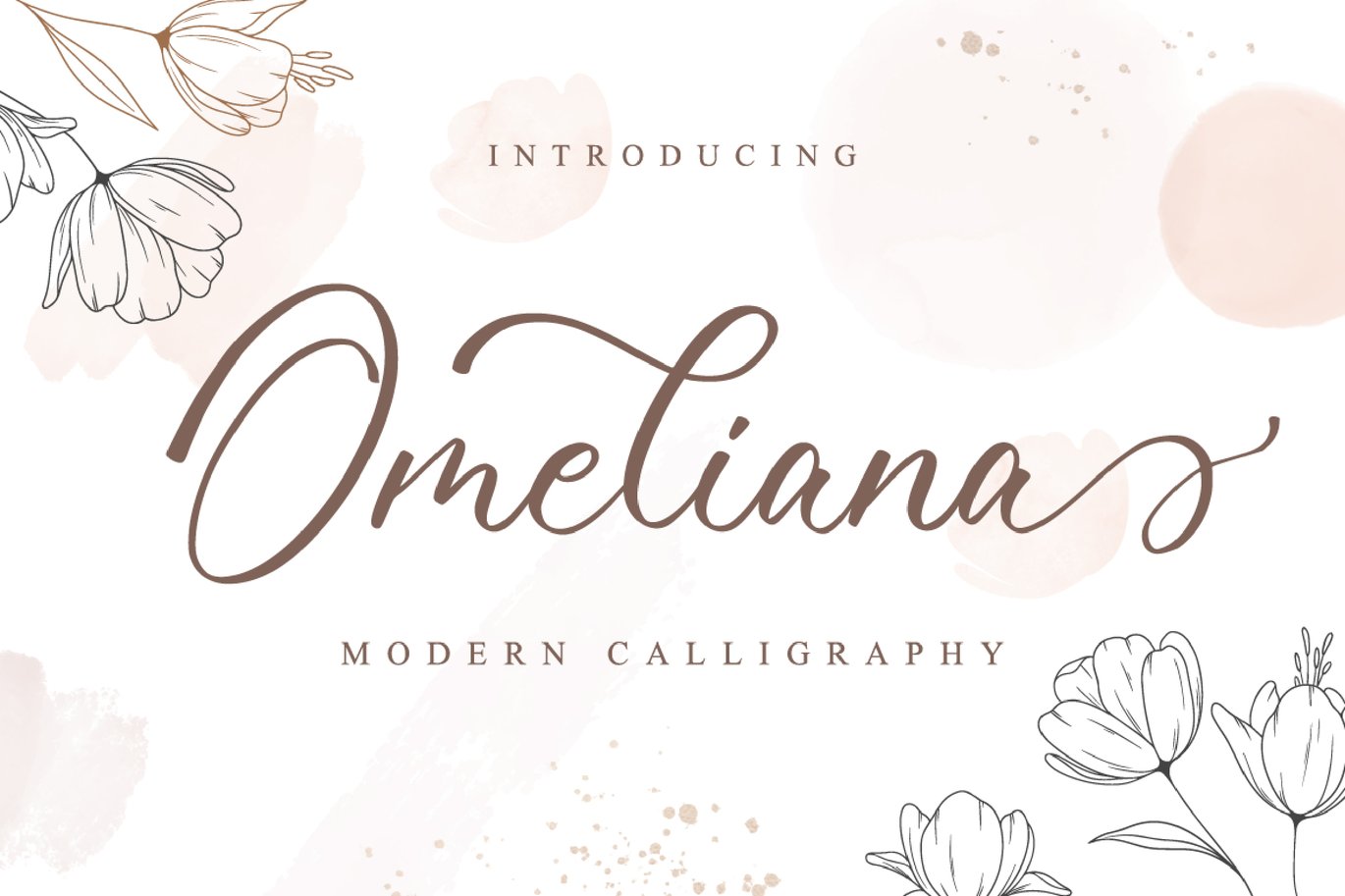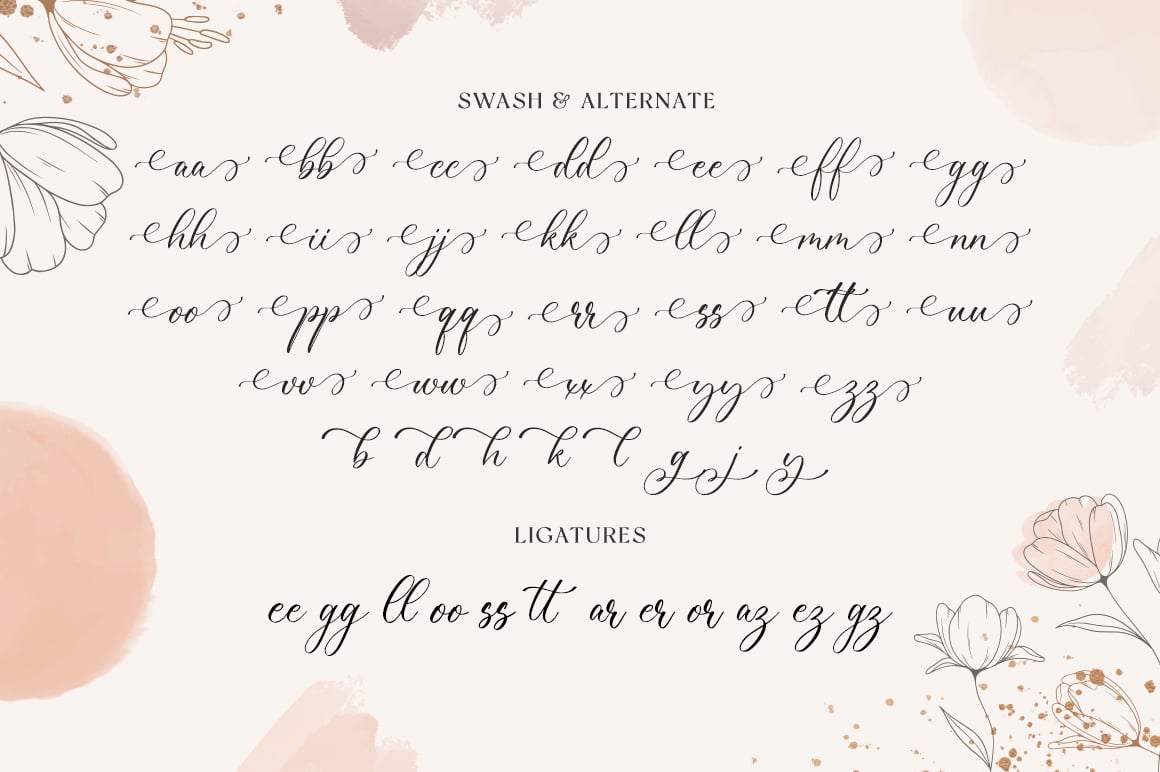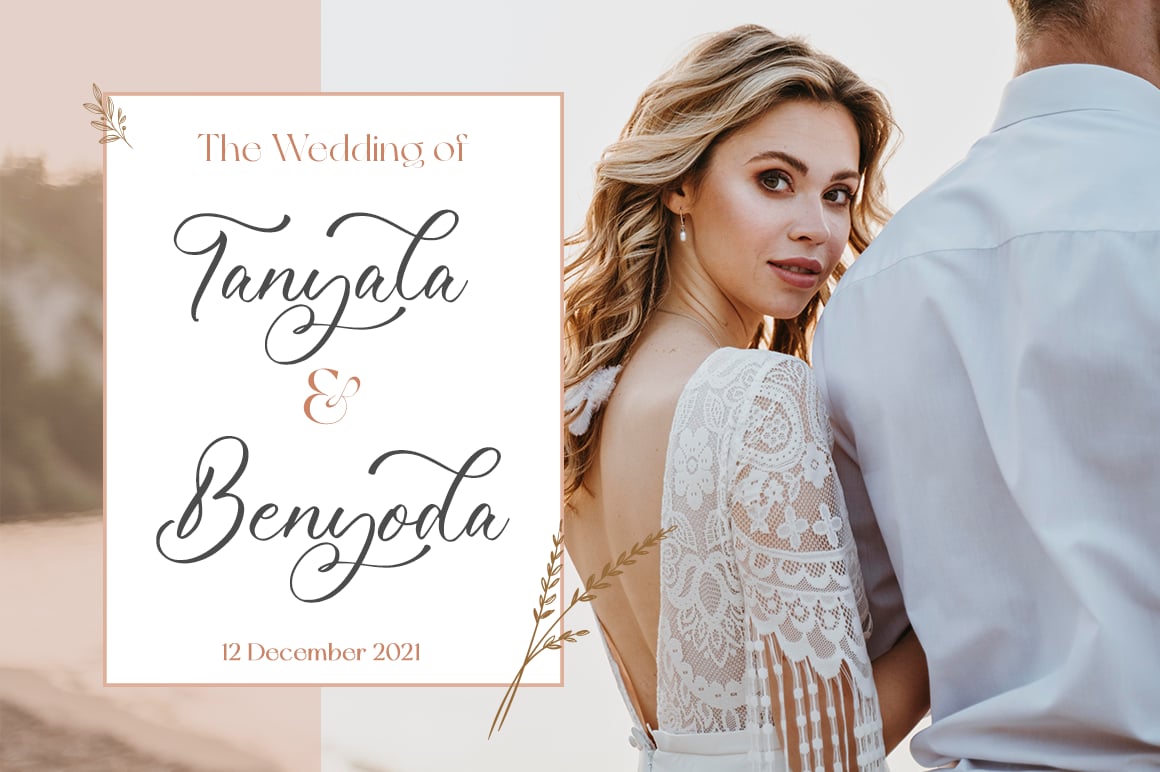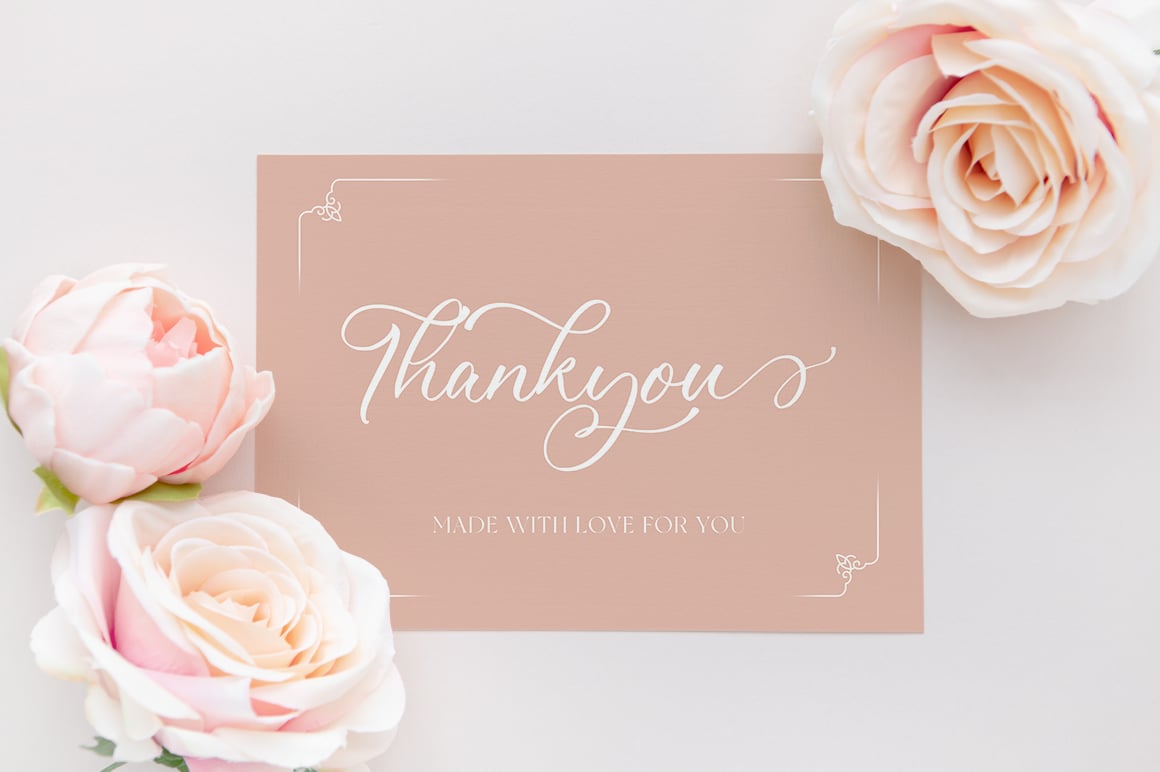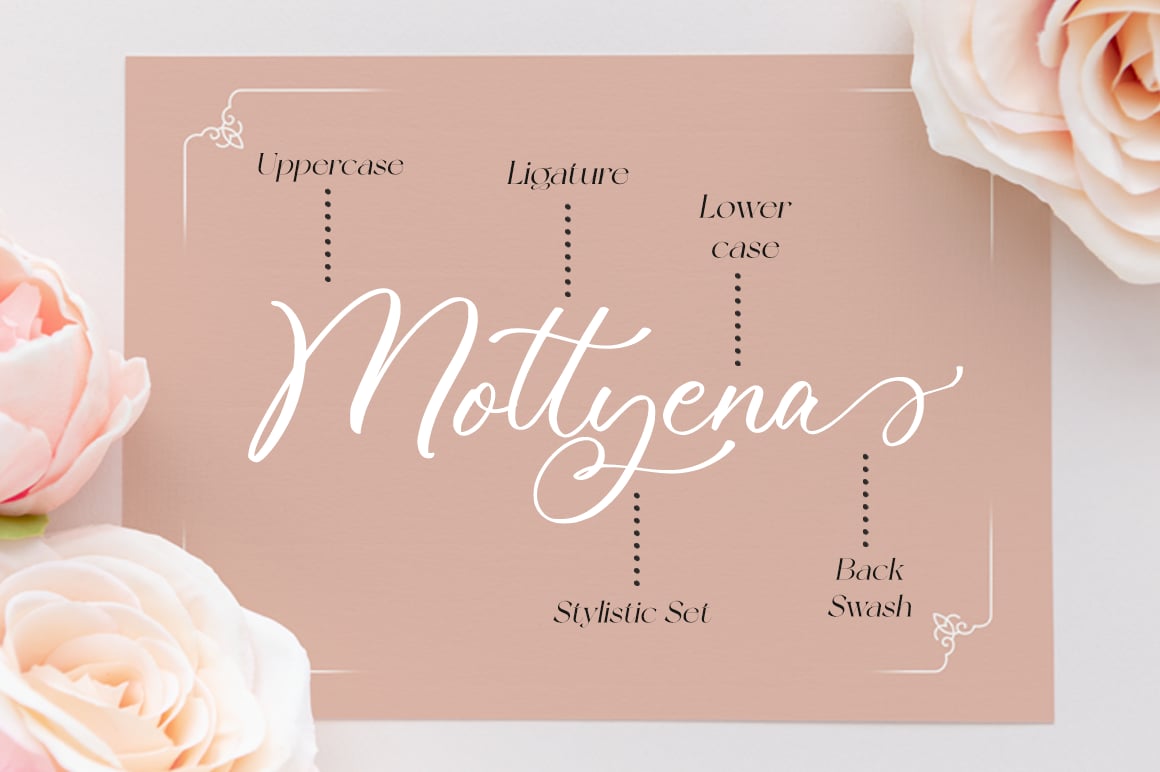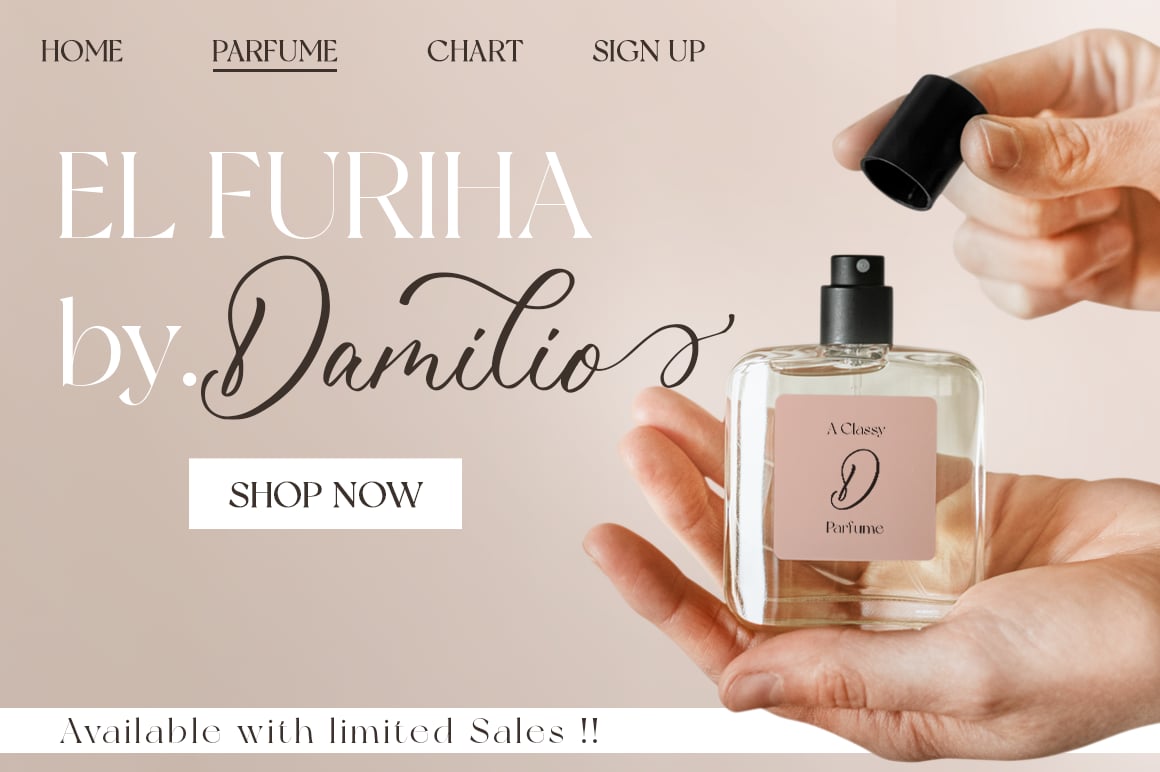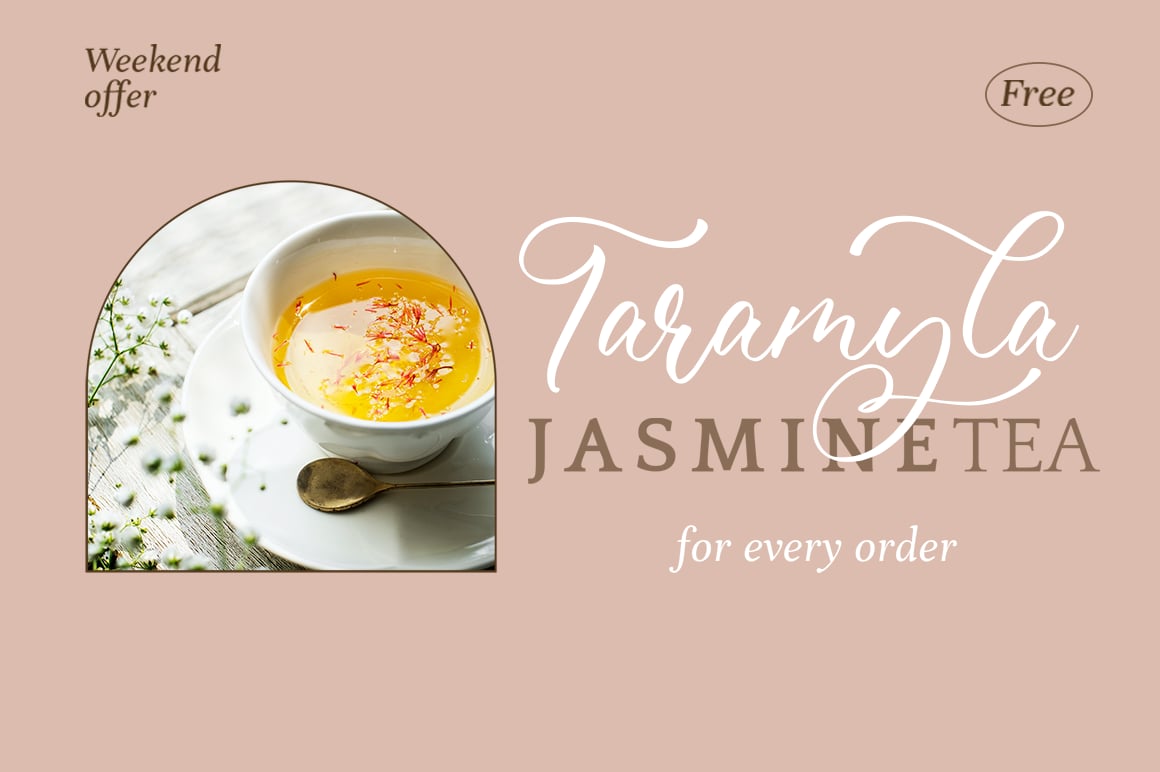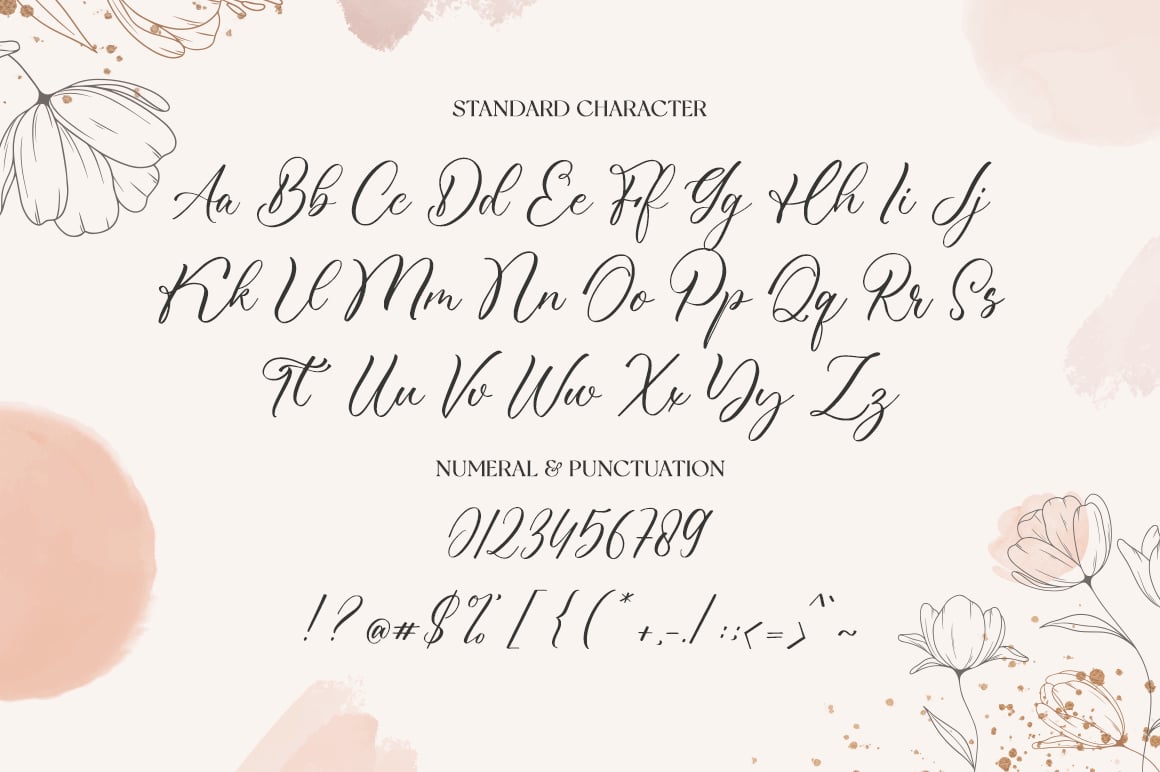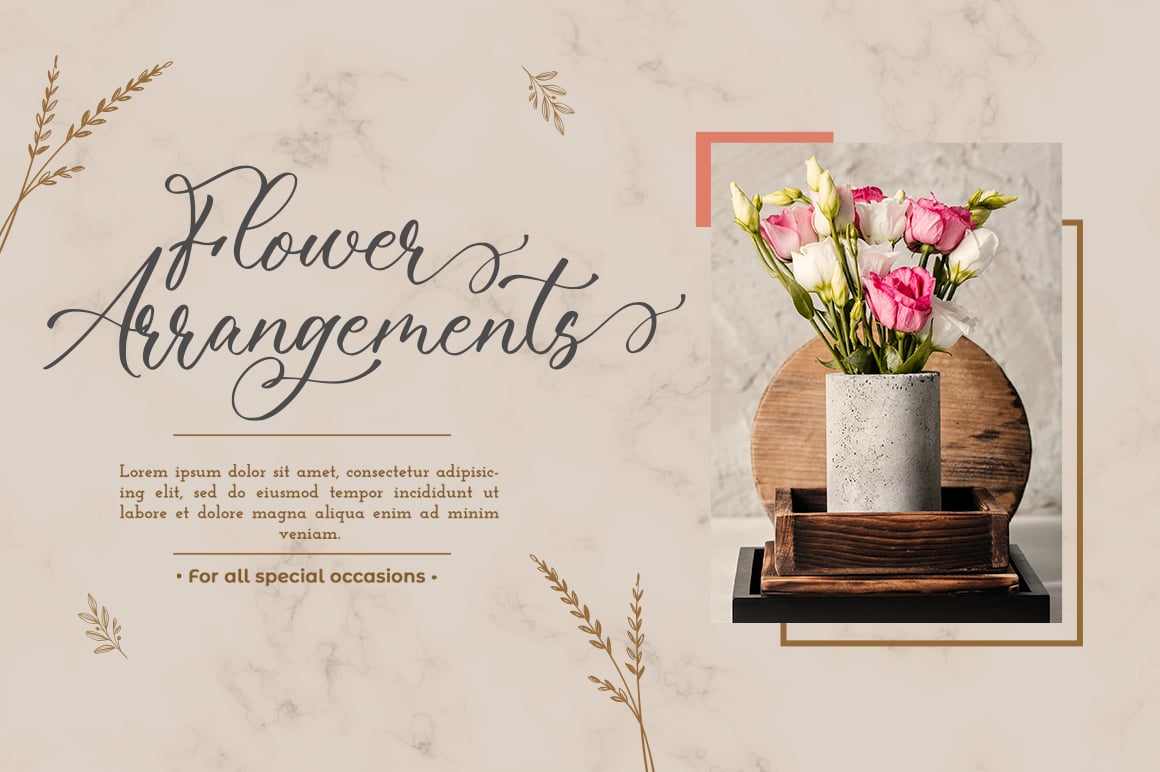
Omeliana – Wedding Font
Omeliana is an incredibly distinct, delicate and timeless handwritten font. It looks stunning on wedding invitations, thank you cards, quotes, greeting cards, logos, business cards and every other design which needs a handwritten touch.
- Modern Handwritten Font
- Beautiful Swash (Ending tail)
- Beautiful Titling (Beginning tail)
- Special Ligatures